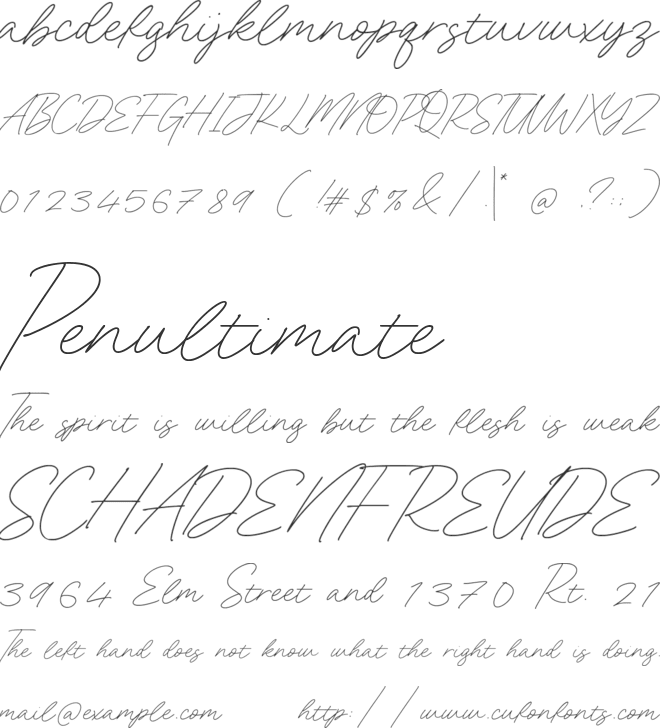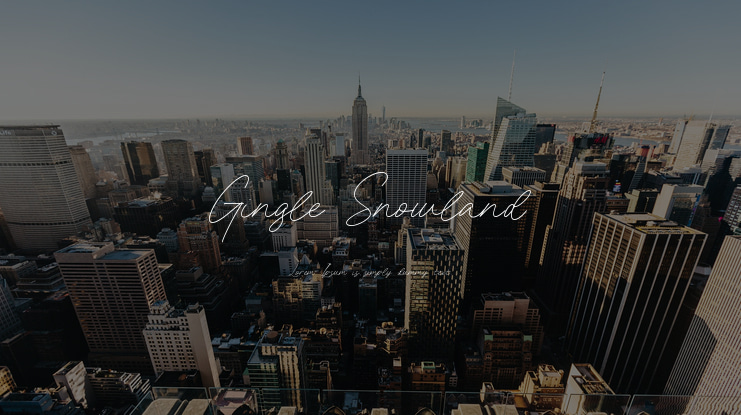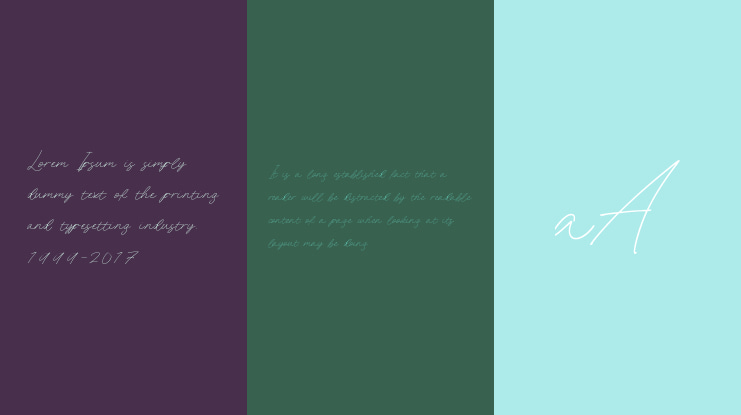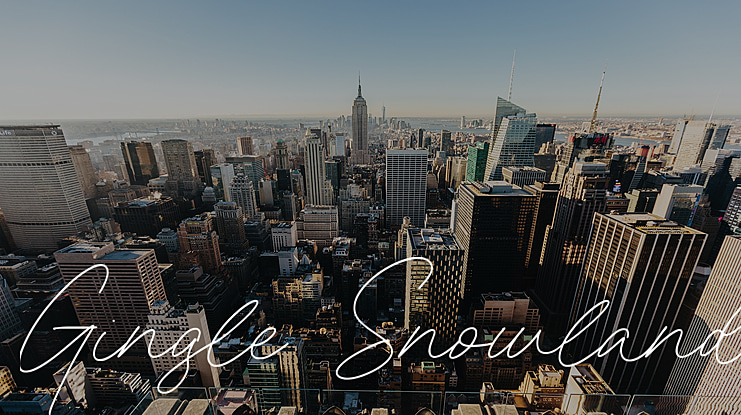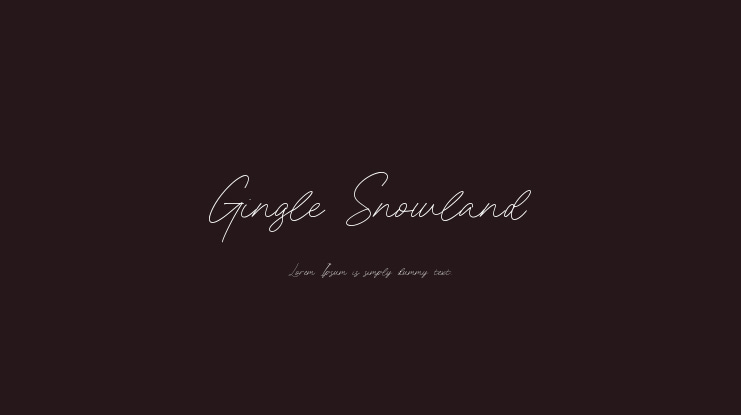
Gingle Snowland Font
Proudly Present, Gingle Snowland Font.
Gingle Snowland is a Monoline Signature Font.
Gingle Snowland is perfect for product packaging, branding project, megazine, social media, wedding, or just used to express words above the background.